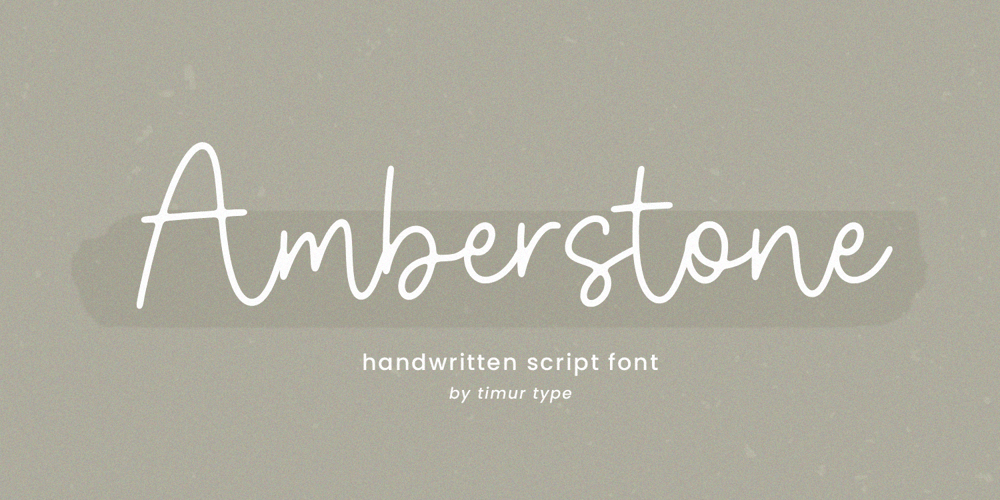
Amberstone Font Family was designed by Wara Sigit Tri Pamungkas and published by Timurtype. Amberstone contains 1 styles and family package options. Introducing by Timur typeAmberstone A Handwritten Script FontAmberstone is perfect for product packaging, branding project, magazine, social media, wedding, or just used to express words above the background.Amberstone also has multilingual support.Embelish your designs with our original fonts. Enjoy the font, thank you!